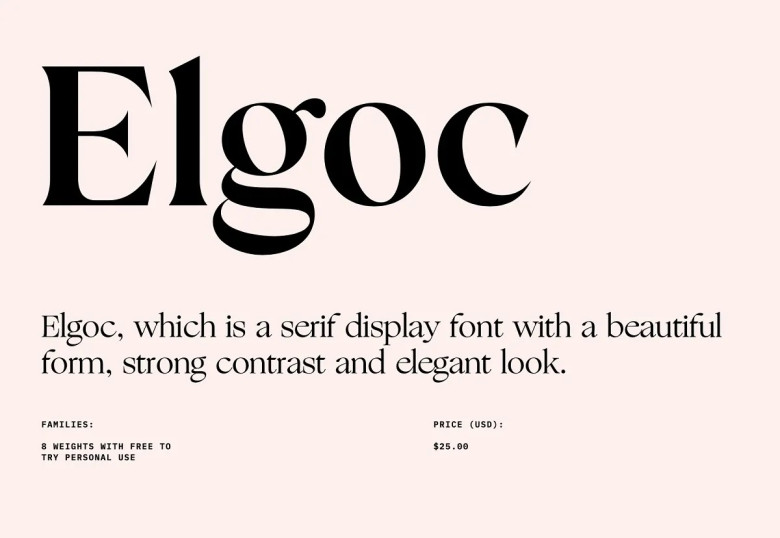
Elgoc Font
Elgoc is a delicate and chic serif font published by Santi Rey. This one, with its elegant features and graceful appeal, is both well-balanced and tasteful, making it appropriate for a large number of works.
Elgoc Serif Font